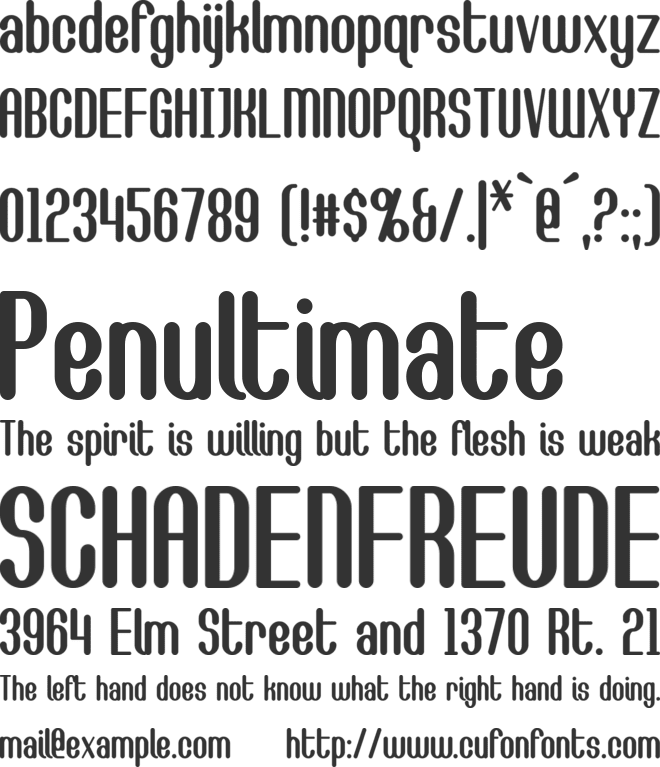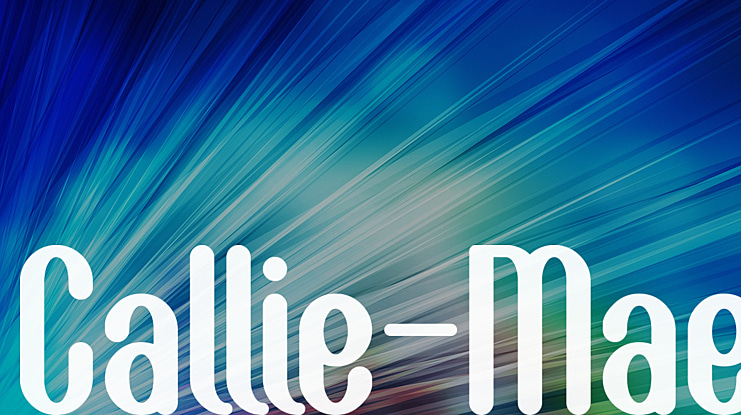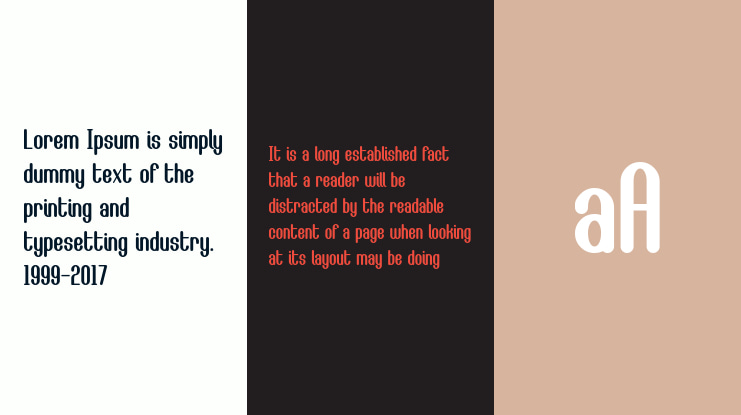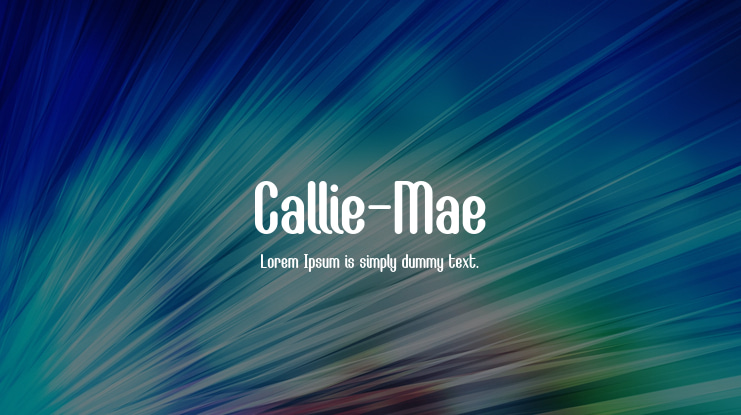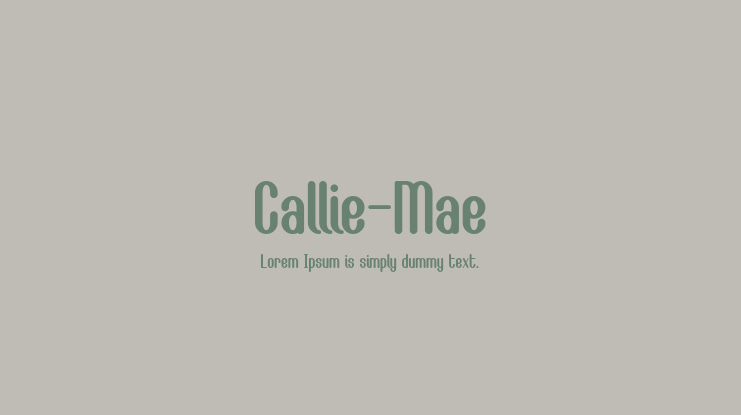
Callie-Mae Font Family
Neale Davidson
This is a simple, rounded art-deco found based on those found in pulp-era "romantic movie" marquees. Includes full alphabet, extended punctuation, euro. Includes italic and bold version.